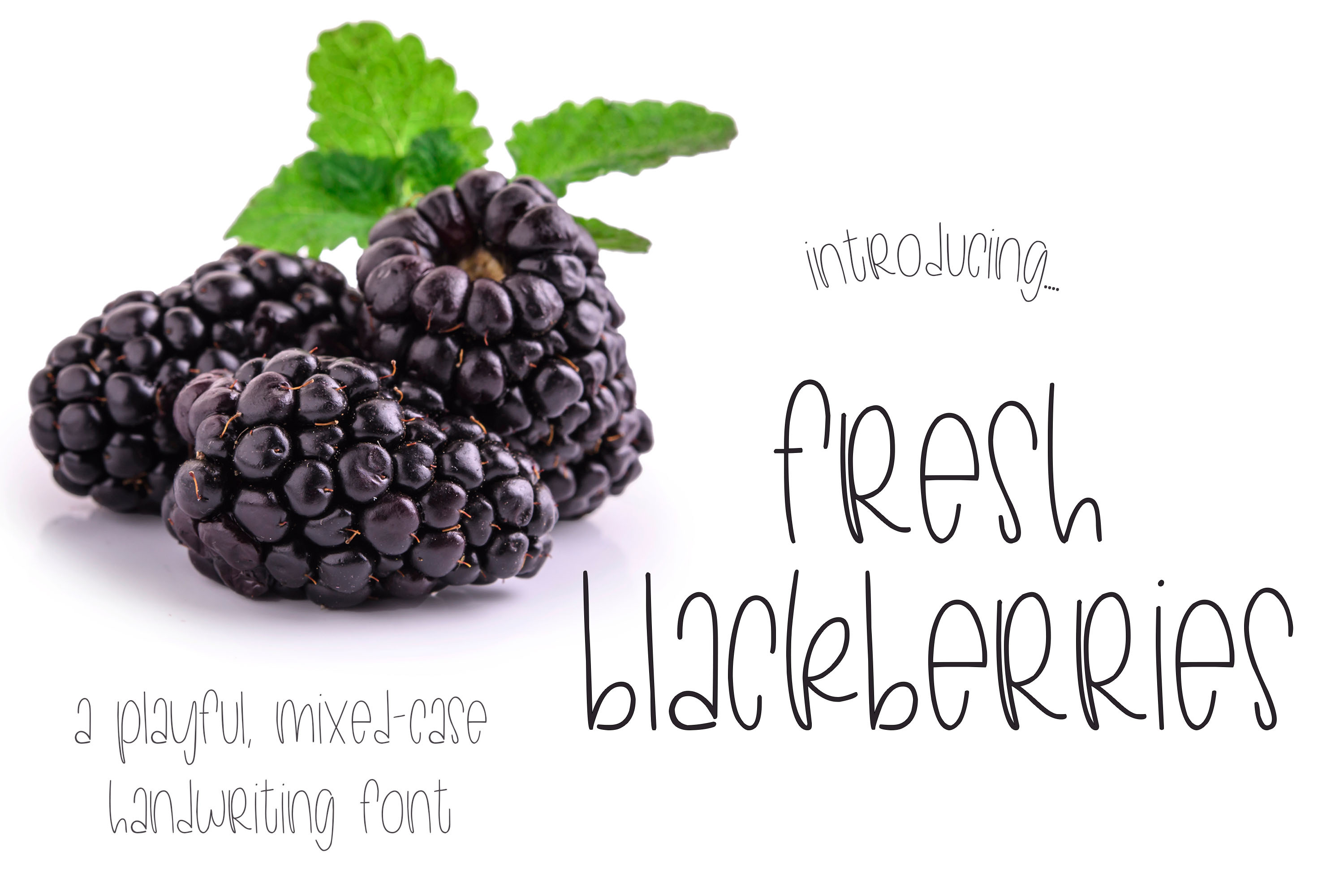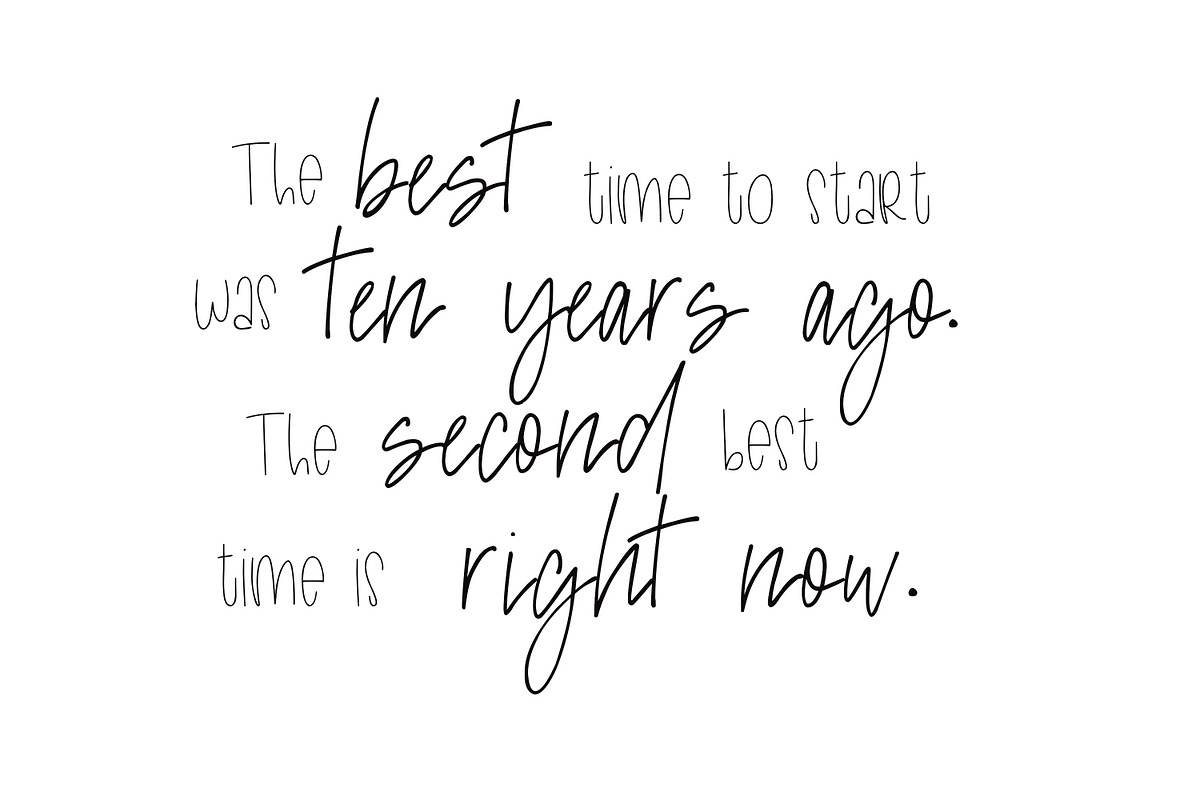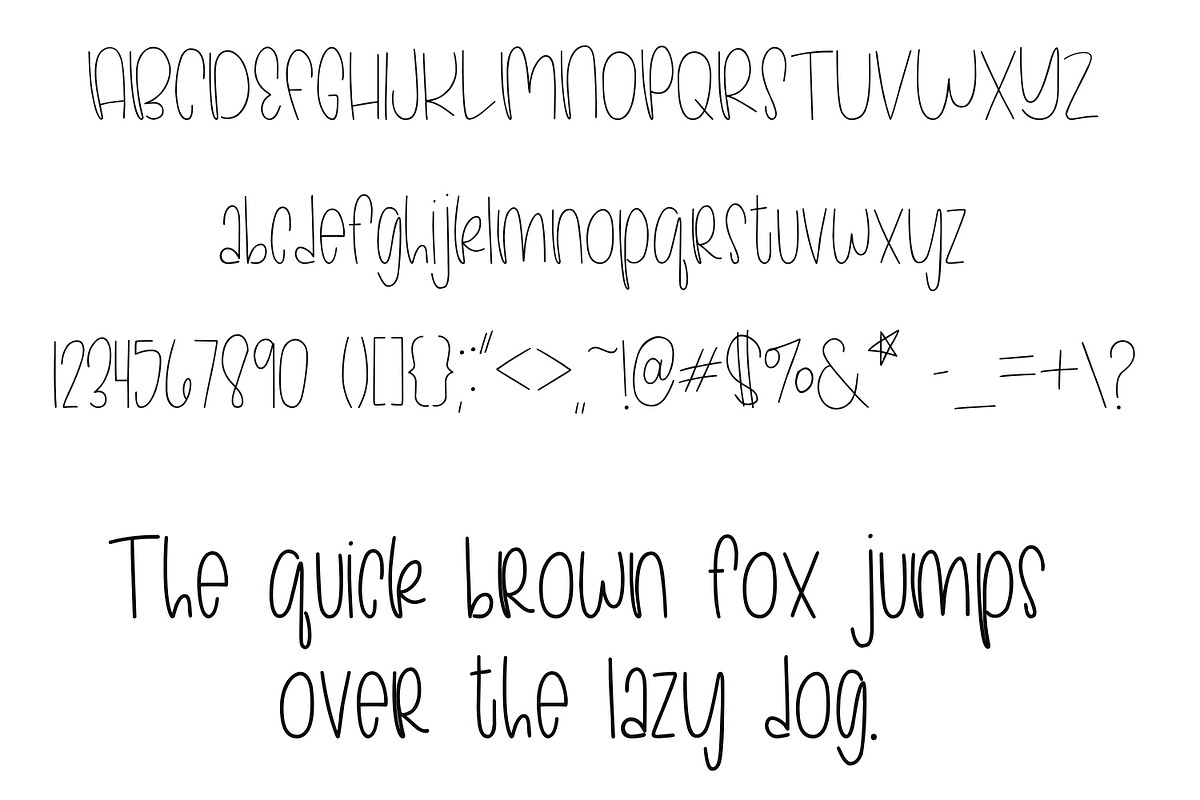
Fresh Blackberries | A cute font
Fresh Blackberries is a playful, mixed-case handwriting font. This font is perfect for an assortment of things and pairs very well with others (especially script fonts!). This font has two weights: Bold and Regular, and you can use this font for all sorts of things, including:
- greeting cards
- invitations
- posters
- t-shirt designs
- SVG Designs And more...
- Uppercase Characters
- Lowercase Characters
- Multilingual support for various languages: French, Spanish, Italian